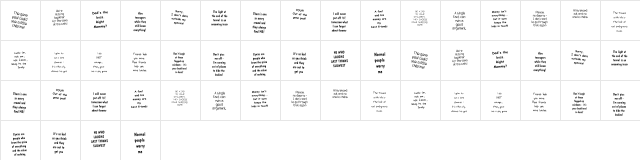
KR Peoplez Regular
Design Context for KR Peoplez Typeface
KR Peoplez is a composed and adaptable typeface that performs quietly and consistently across a wide range of design contexts.